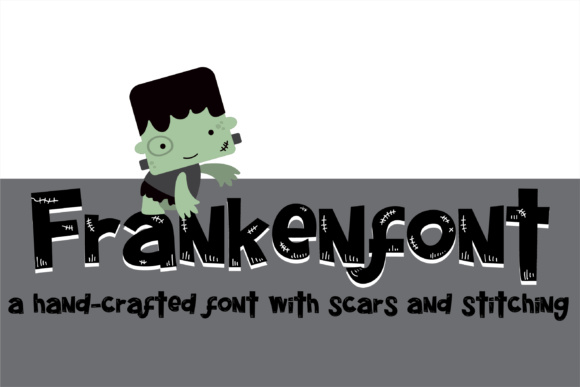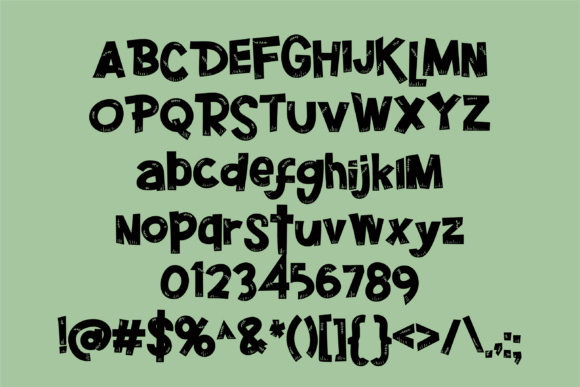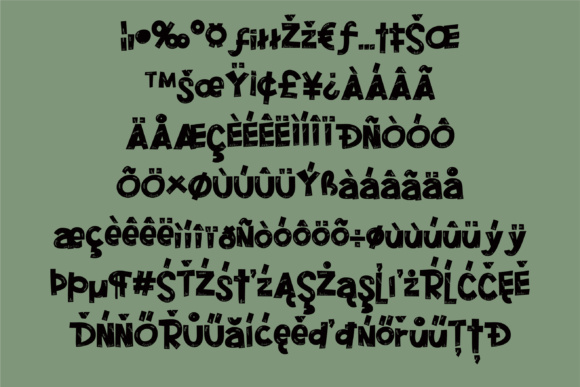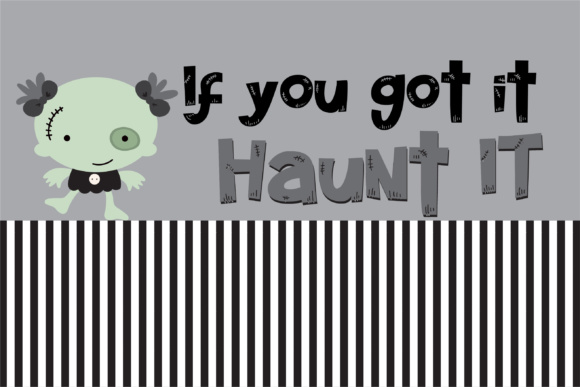
Frankenfont Font
About the Frankenfont Font
The wait is over! The incredible Frankenfont Font is now available for your design toolkit. This blocky and fun font features stitches and scars throughout.
Frankenfont’s playful, slightly spooky personality makes it ideal for projects needing a bold, attention-grabbing aesthetic. It works exceptionally well in headlines, posters, and branding for Halloween-themed events or products with a quirky, vintage feel. Consider it for packaging of novelty items or children’s books with a mischievous edge. However, its unusual letterforms and inconsistent baseline make it unsuitable for body text or UI elements requiring high readability.
Pairing Frankenfont effectively requires a contrasting but complementary typeface. A clean sans-serif like Open Sans or a geometric sans-serif like Futura would provide a strong counterpoint, enhancing the stitched aesthetic’s impact. For a more whimsical feel, a rounded script font could work, adding a touch of elegance while maintaining the overall playful tone.
Avoid using Frankenfont in situations demanding high legibility, such as long-form content or website copy. Its unique charm shines brightest when used sparingly for impactful visual elements.